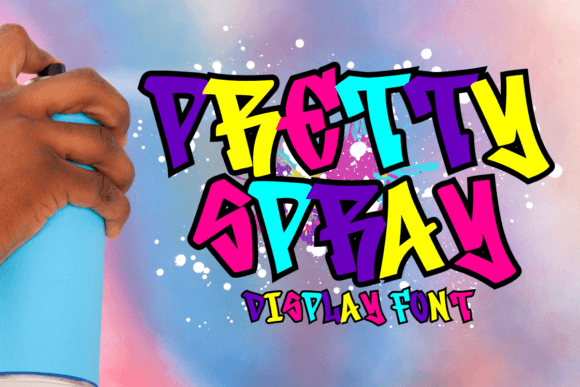
Pretty Spray Font: A Display Typeface for Crafters and Makers
If you’ve been searching for a display font that brings both personality and polish to your handmade products, Pretty Spray deserves a close look. As a creator who designs labels, stickers, invitations, and digital templates, I’m always on the lookout for typefaces that offer that perfect balance between standout style and everyday usability. Pretty Spray delivers exactly that—a beautifully crafted display font that elevates every project it touches. Whether you’re working on wedding stationery, product packaging, or seasonal decor, this font has the charm and versatility to make your creations look professional and intentional.
What Makes Pretty Spray an Ideal Display Font for Handmade Products
Pretty Spray is marketed as an incredibly unique display font, and after using it in several projects, I can confirm that reputation is well-earned. Its letterforms have a playful yet refined quality—curves that feel hand-drawn but with consistent weight that makes planning layouts straightforward. For crafters who need a display font that works beautifully on product labels, signs, and card fronts, Pretty Spray offers that rare combination of being both eye-catching and readable. The font’s character shines in short phrases, single words, or titles, making it a perfect choice for project titles on printables, welcome signs, or branded tags. Because it’s a display typeface, you’ll want to use it at larger sizes—think 24pt and above—where its details can truly be appreciated. On cutting machines like Cricut or Silhouette, the clean outlines mean less weeding frustration, and on printed products, the letter spacing remains clear even on textured papers.
Using Pretty Spray on Wedding Invitations and Stationery
When I tested Pretty Spray on a set of wedding invitation mockups, the results were immediately promising. The font lends a romantic, airy feel to couple names and event details, especially when paired with a delicate script or a simple serif for the body text. For invitation designers, this display font works beautifully on save-the-dates, ceremony programs, and place cards. Its readability at larger sizes means guests will easily read names and dates, while the unique letter shapes add a handmade touch that couples love. If you sell printable wedding stationery on Etsy or your own shop, Pretty Spray can become a signature element in your collections. Try using it on envelope liners, welcome boards, and thank-you tags—each piece will feel cohesive because of the font’s consistent personality. For a complete set, consider pairing Pretty Spray with a clean sans serif like Montserrat or a soft serif like Playfair Display to balance the playful display style.
Pretty Spray for Product Labels and Packaging Design
Product packaging is where Pretty Spray truly proves its commercial value. As a small shop owner, I’ve used this display font on candle labels, soap wrappers, and boutique tags, and the feedback from customers has been overwhelmingly positive. The font communicates a sense of care and artistry—exactly what handmade sellers want their packaging to convey. Because Pretty Spray is a display typeface, it excels on product labels where the brand name or product name needs to stand out. For example, a hand-poured soy candle labeled with “Vanilla Bean” in Pretty Spray instantly feels more premium. The font works equally well on jar toppers, box lids, and sticker sheets. If you’re creating a cohesive brand identity across multiple products, using Pretty Spray consistently on all labels helps build customer recognition and trust. Just remember to test the font at small sizes—on very tiny labels, the decorative details might blur, so opt for larger label formats or pair with a simpler secondary font for ingredient lists.
Crafting with Pretty Spray on Cutting Machines and Stickers
For those of us who design with Cricut, Silhouette, or other cutting machines, Pretty Spray is a reliable choice. Its letterforms have clean paths that cut smoothly without excessive node points, meaning less time spent fixing weeding issues. I’ve created sticker sheets with Pretty Spray for planner covers, gift tags, and laptop decals, and the font holds up beautifully when cut from vinyl or printable sticker paper. The key is to keep the text bold and avoid using the font on extremely small elements—stick to phrases of one to three words for best results. This display font also works wonderfully on T-shirts, tote bags, and mugs when used as the hero text. For multi-color layered designs, consider using Pretty Spray in the top layer with a contrasting shadow underneath. The font’s open letterforms make layering straightforward, even for intricate designs. If you sell SVG templates or cut-file bundles, including Pretty Spray as a recommended font (with proper licensing) can increase the perceived value of your products.
Pairing Pretty Spray with Other Fonts for Brand Consistency
No craft project lives on a single font alone, and Pretty Spray pairs beautifully with a variety of other typefaces. Because it’s a display font with a playful, slightly vintage personality, it works best when balanced by a neutral, clean companion. I often pair Pretty Spray with a simple sans serif like Lato or Open Sans for body text on product tags, or with a light script font like Allura for invitation headers and subheadings. When creating brand kits for clients, I recommend using Pretty Spray as the accent font for logos and main messaging, then selecting a legible serif for catalog descriptions and a sans serif for contact details. This three-font strategy ensures visual interest without overwhelming the design. The versatility of Pretty Spray means it can shift from a boho wedding theme to a modern farmhouse aesthetic with just a change of supporting fonts and color palette. Always preview your pairings on mockups before finalizing to ensure the combination feels intentional and not chaotic.
Getting the Most from Pretty Spray in Your Craft Projects
To truly make Pretty Spray shine in your work, focus on context and scale. Because this is a display font, it demands attention—use it on hero elements like product titles, event names, or featured quotes. Avoid using it for long paragraphs or detailed instructions, as the decorative nature becomes difficult to read in blocks of text. Instead, reserve Pretty Spray for the moments that need personality. For crafters who sell on Etsy, Amazon Handmade, or at local markets, a single well-placed word in Pretty Spray can transform a plain label into a memorable brand touchpoint. I’ve also used the font on project title slides for video tutorials, social media graphics, and blog headers—each time it adds a professional, curated look. Experiment with letter spacing and size adjustments to fine-tune the font’s impact. In design software, adding a slight tracking (letter spacing) can improve readability on small items. And don’t forget to test print or test cut before going into full production—every display font behaves a little differently on different materials. Pretty Spray is forgiving, but a quick test saves time and materials.
Pretty Spray has become a staple in my font library because it balances whimsy with function—a rare combination in display typography. Whether you’re a seasoned stationery designer or a hobbyist just starting to sell your creations, this font offers a reliable way to add visual interest without sacrificing clarity. The next time you need a typeface that feels both special and practical, give Pretty Spray a try on your labels, signage, or digital downloads. Your customers will notice the difference, and your craft projects will gain a cohesive, polished look that keeps buyers coming back.